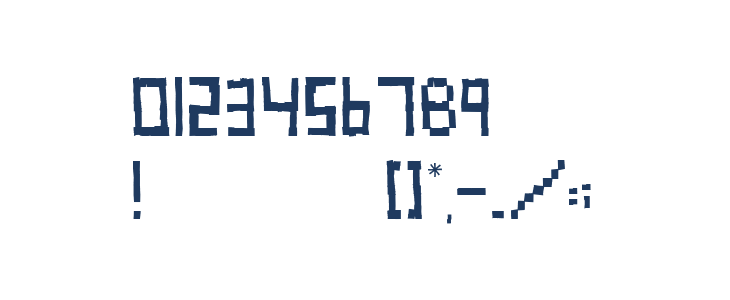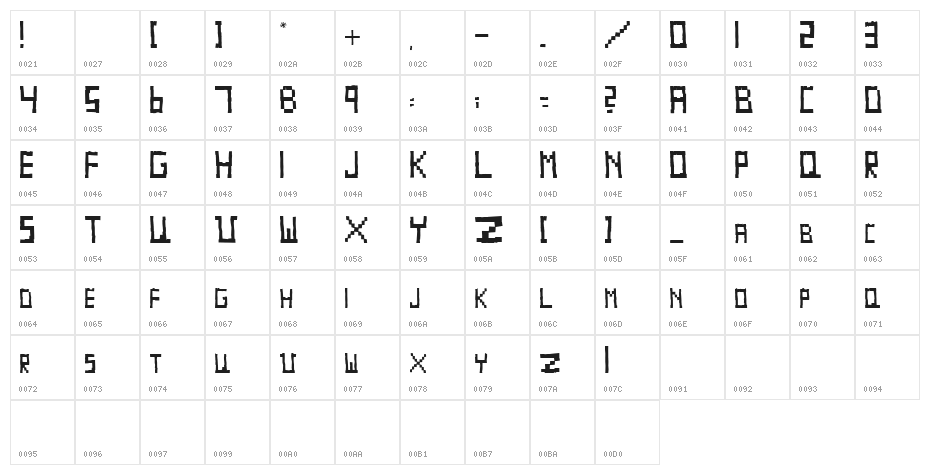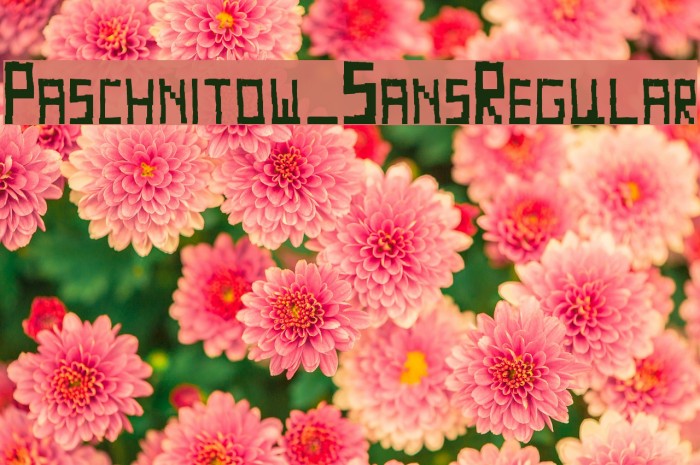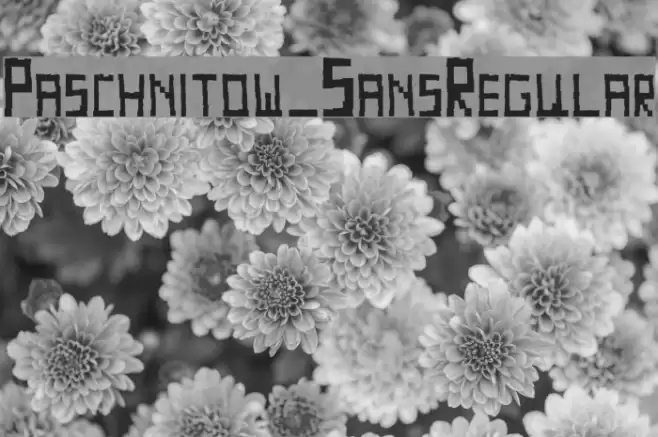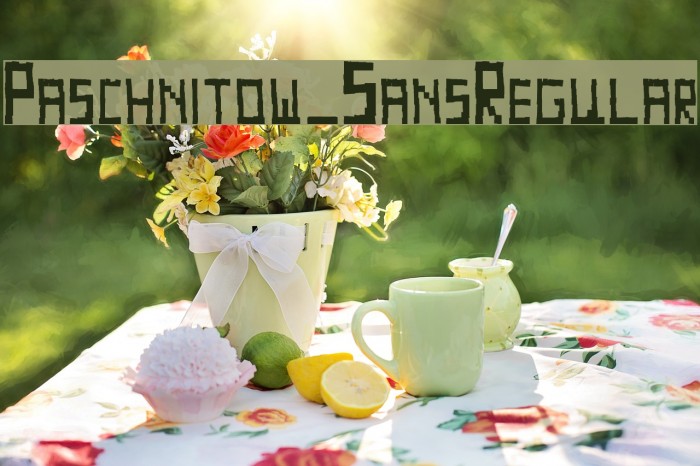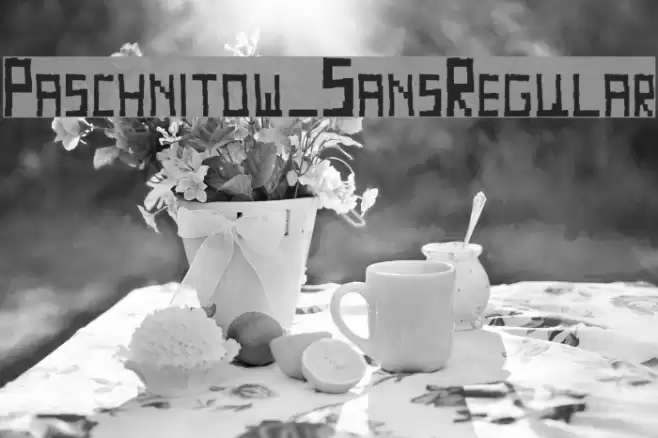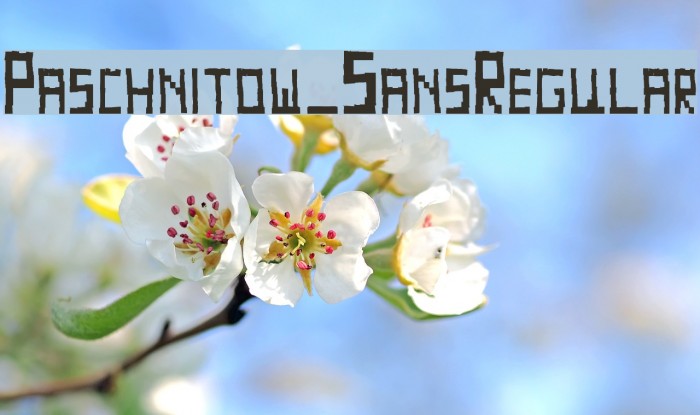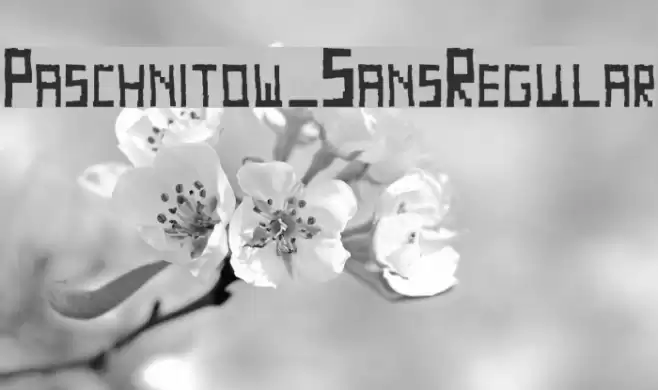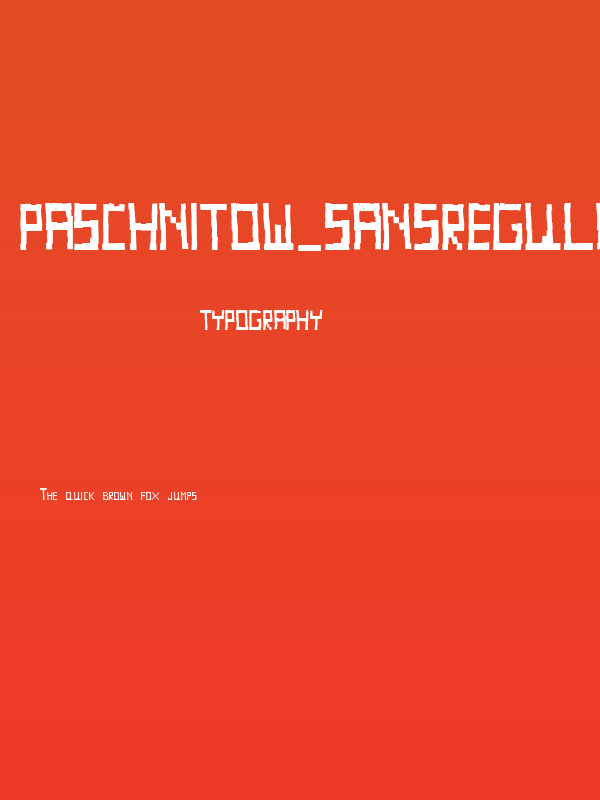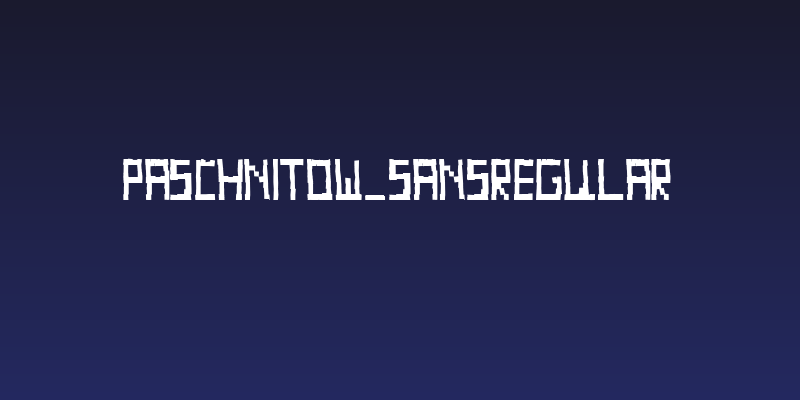
Paschnitow_SansRegular Font
Paschnitow_SansRegular Description
This font features a bold, geometric design with a hand-drawn aesthetic. The characters are constructed with thick, uneven strokes, giving them a rugged and organic appearance. The uppercase and lowercase letters maintain a consistent height, contributing to a monospaced feel, although the font is not strictly monospaced. The numbers and special characters follow the same design principles, ensuring uniformity across all glyphs. The overall style is reminiscent of a digital or pixelated typeface, yet retains a distinctly human touch due to its irregularities. This font is highly legible and makes a strong visual impact, suitable for projects that require a bold and unconventional look.